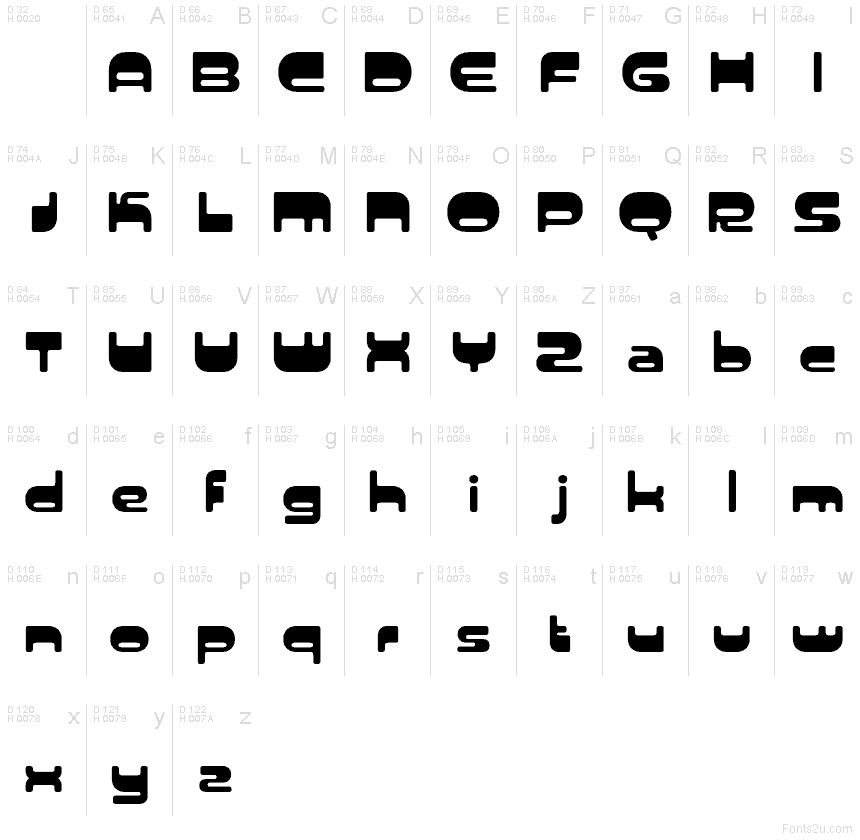
CS Darwin Regular Demo
CS Darwin font by Craft Supply Co. is a free bold retro expanded display font. It stands out with pillowy, squircle shapes and buttery-smooth terminals that turn every word into a glossy, modular ribbon. The wide stance and even, low-contrast strokes deliver a confident, billboard-scale rhythm that reads fast and hits hard, while the soft corners keep it friendly instead of shouty.
Using CS Darwin, headlines and wordmarks snap into place for posters, logos, packaging, signage, album art, and splashy social graphics. This free font shines on short phrases and brand monograms where its chunky curves can breathe. Pair it with a lean grotesk or geometric sans for body copy, and add a touch of extra tracking at large sizes to let those rounded forms glow.